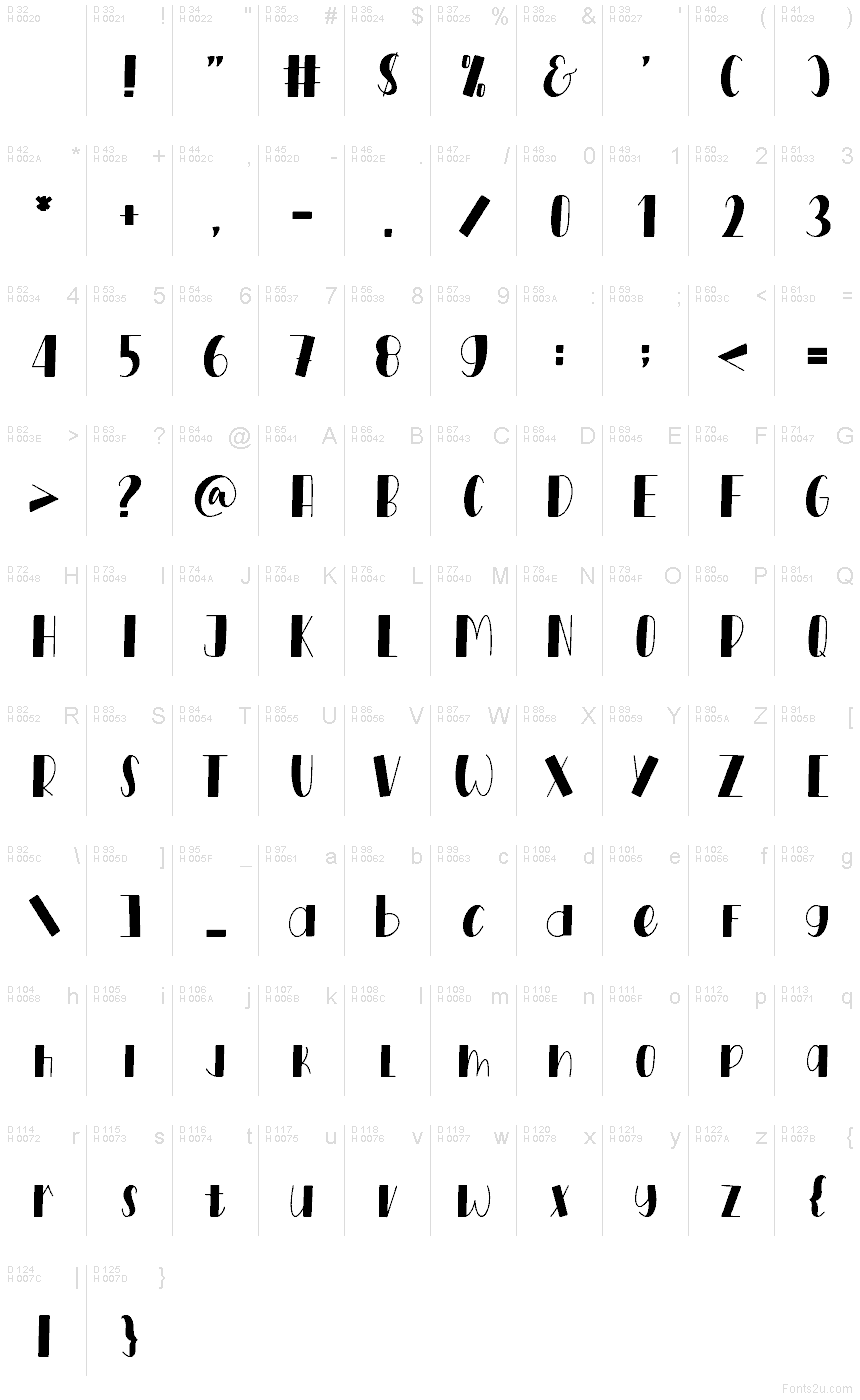
Forest Glamor
Forest Glamor font by Wildan Type is a modern decorative display typeface with contrasting styles fused in an eclectic look. Both upper and lowercase characters are included and their structure can be described as condensed, bold, and slightly whimsical. Some letters are written in a mono-linear style while others include quirks that give them character.
This free artistic font is naturally suited for headings, signage, magazines, books covers, wrapping papers, posters, cards, invitations, movie credits and more!